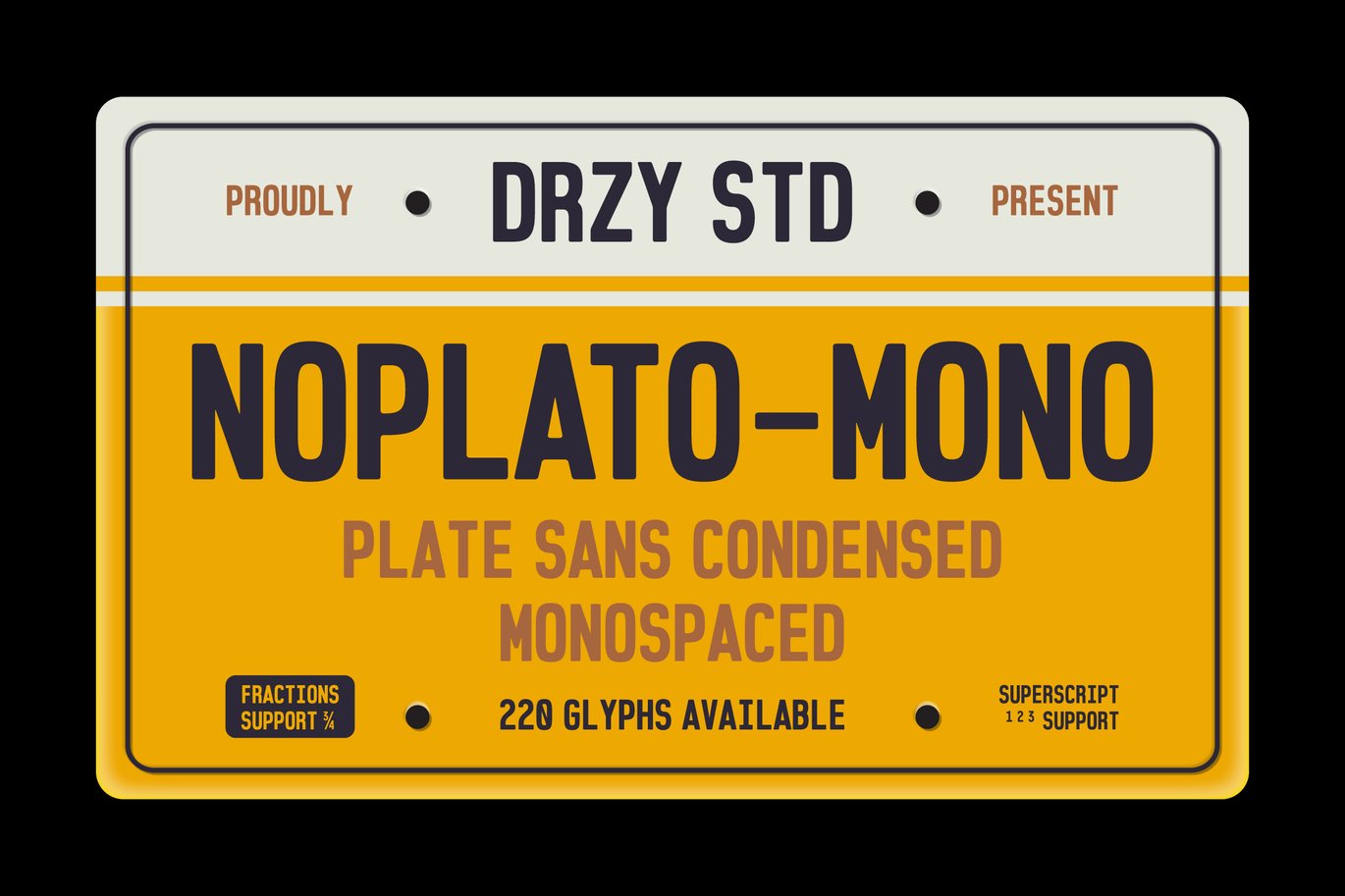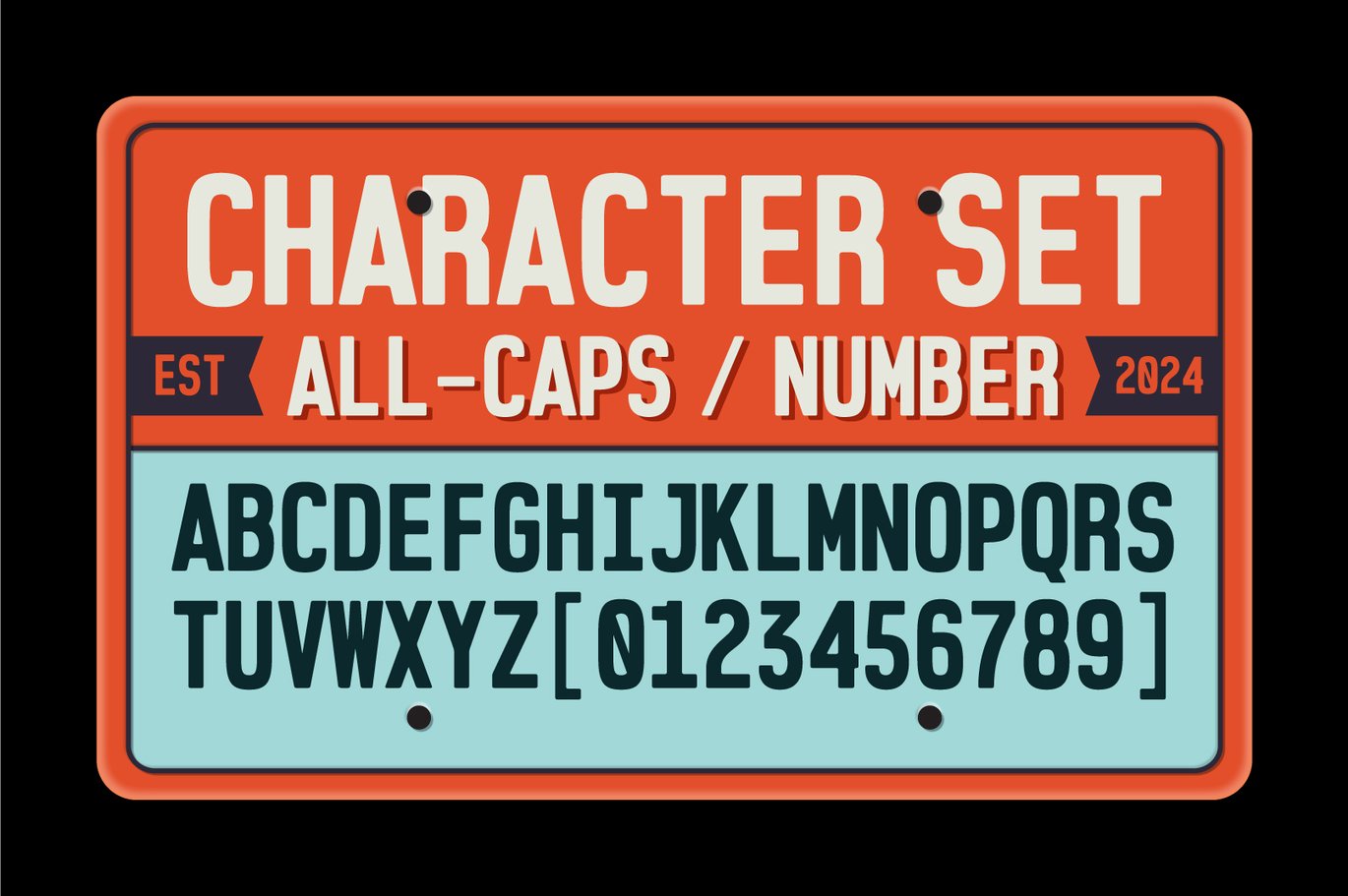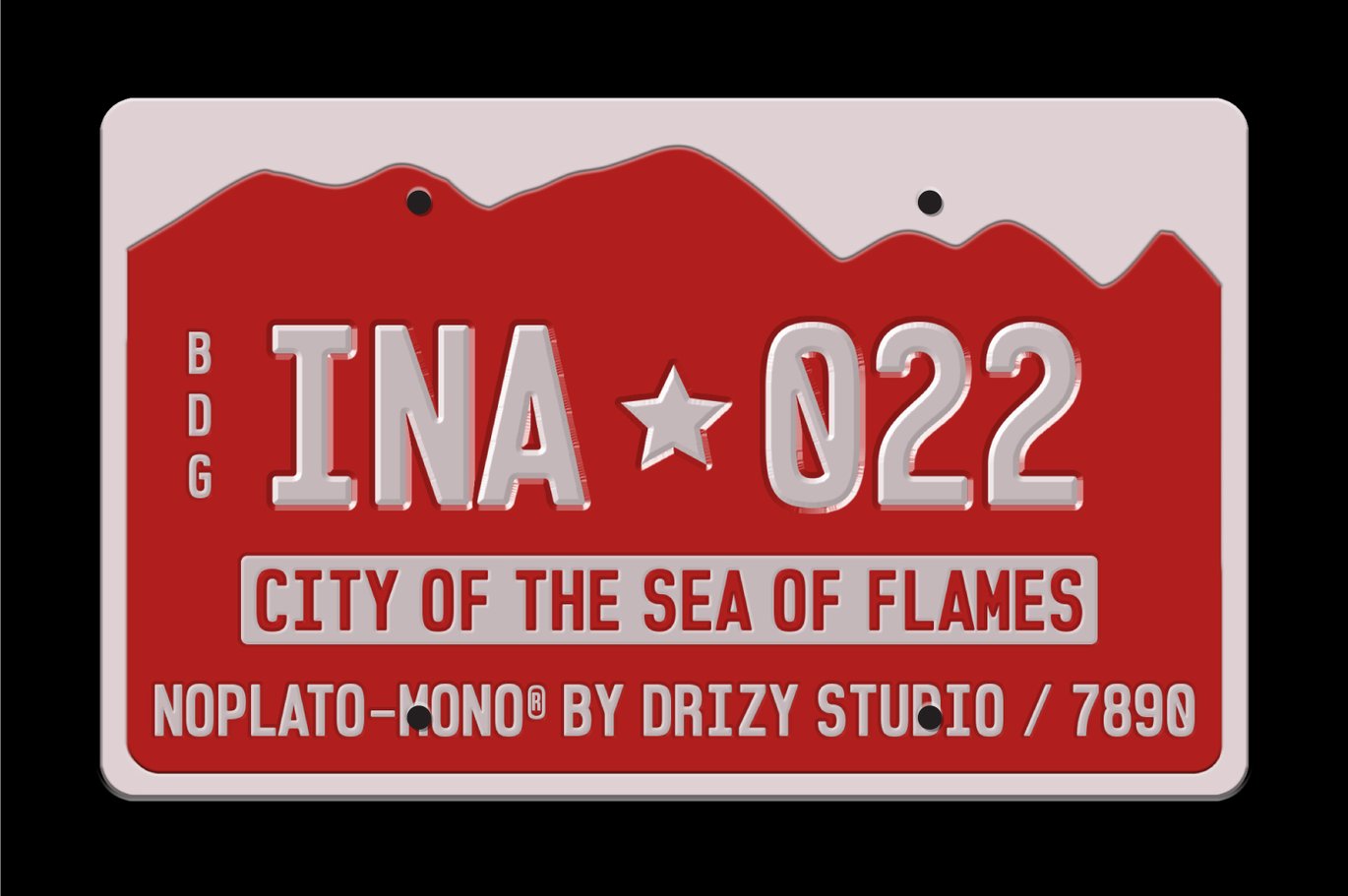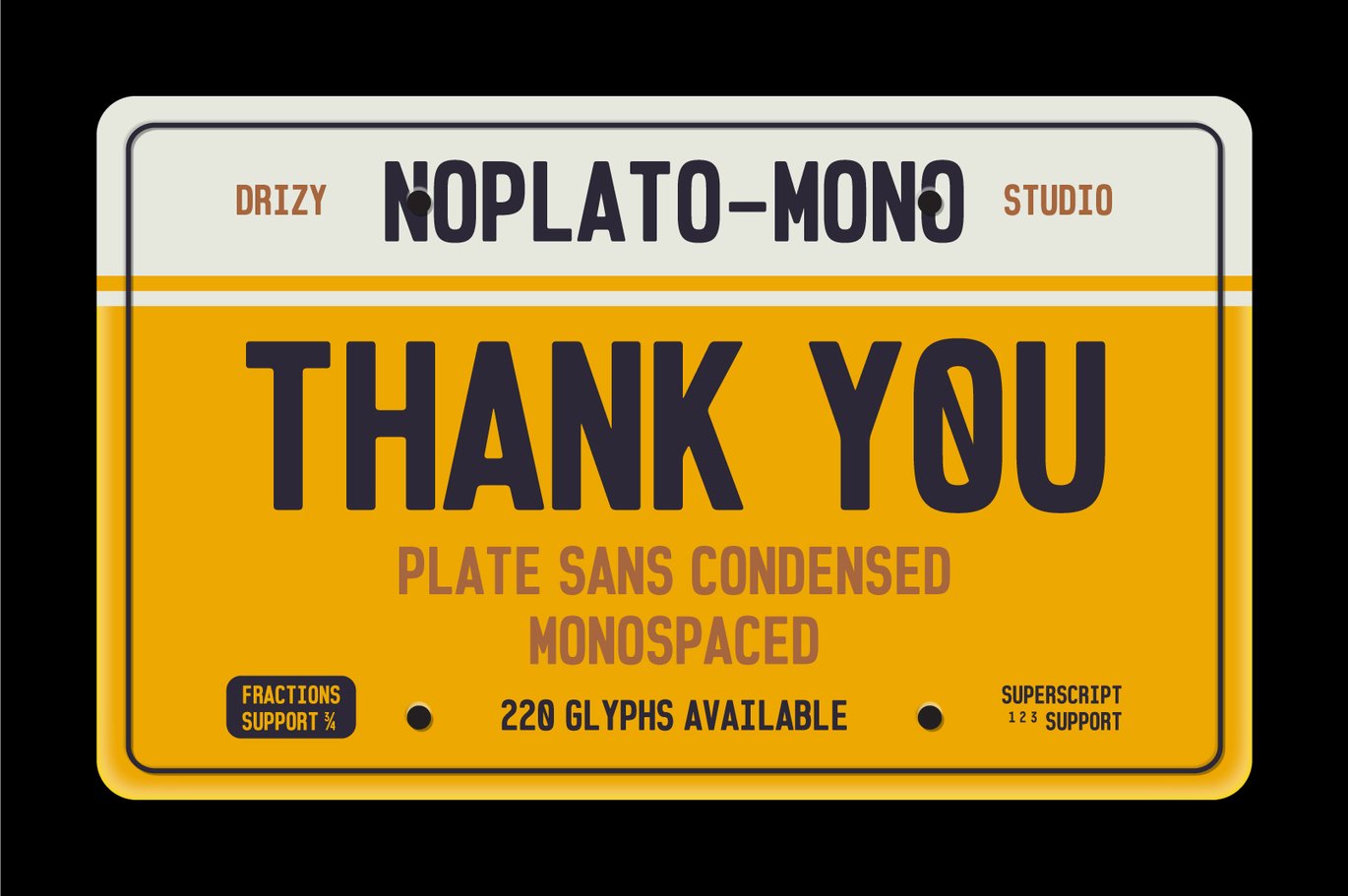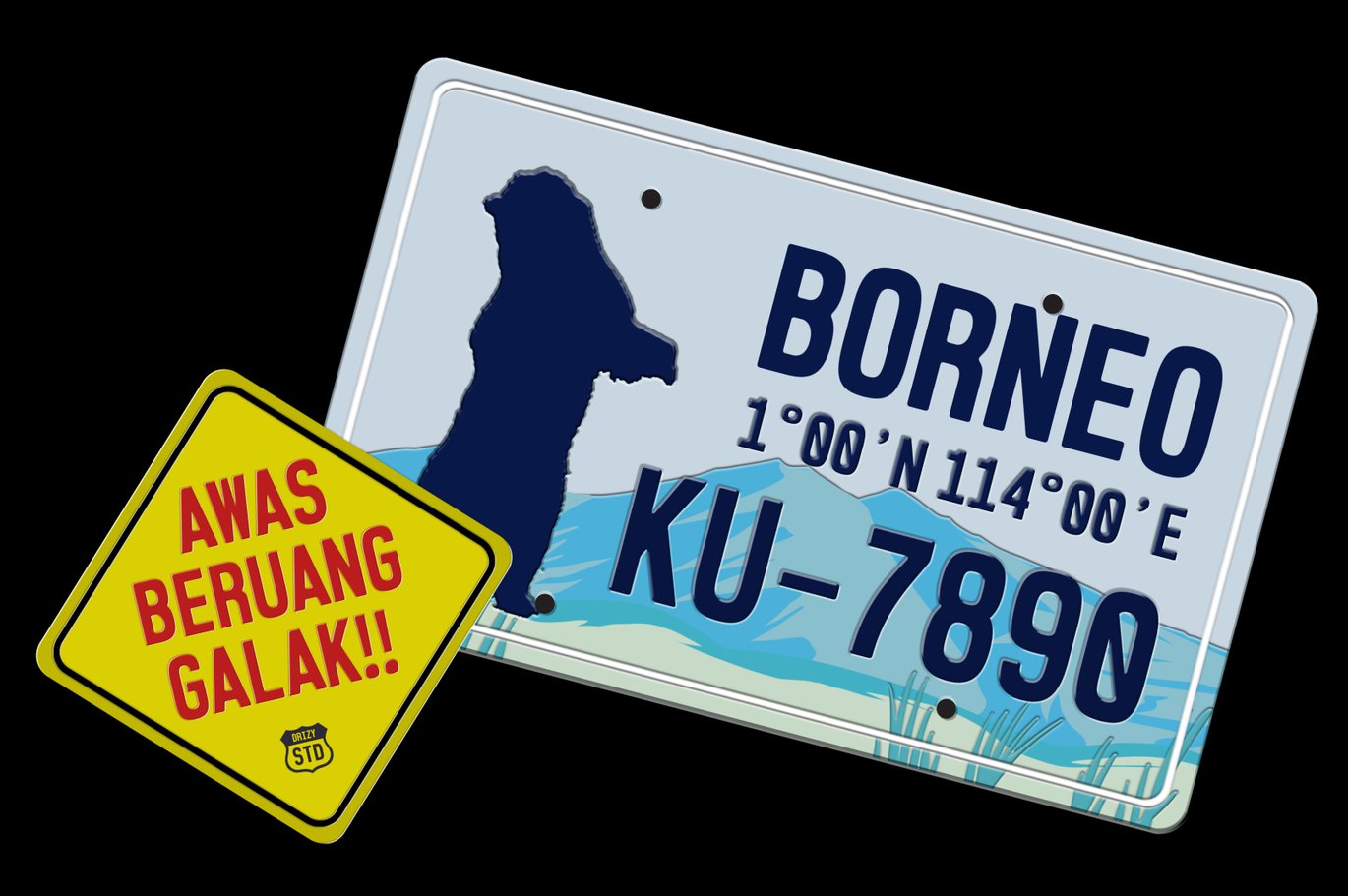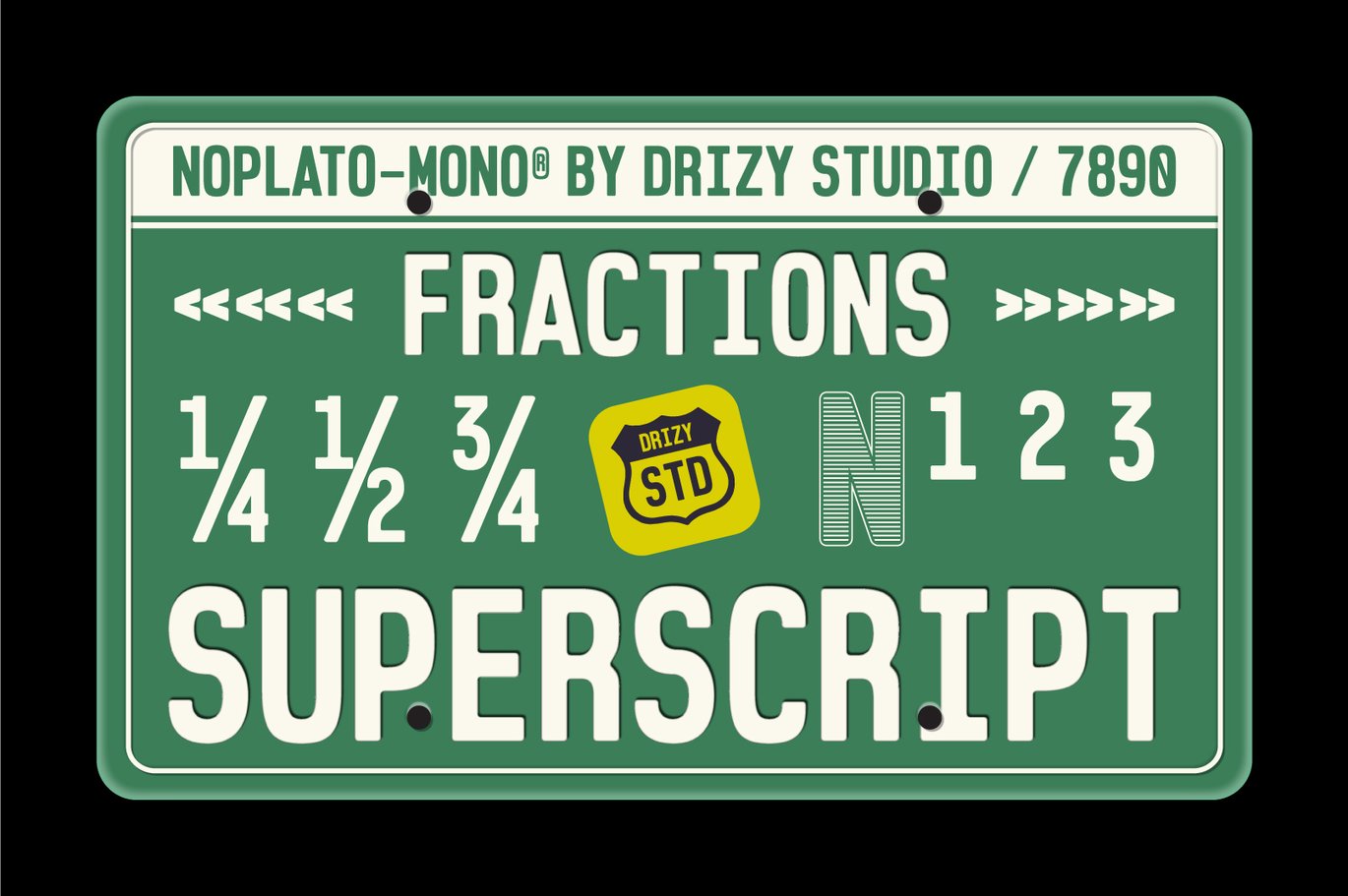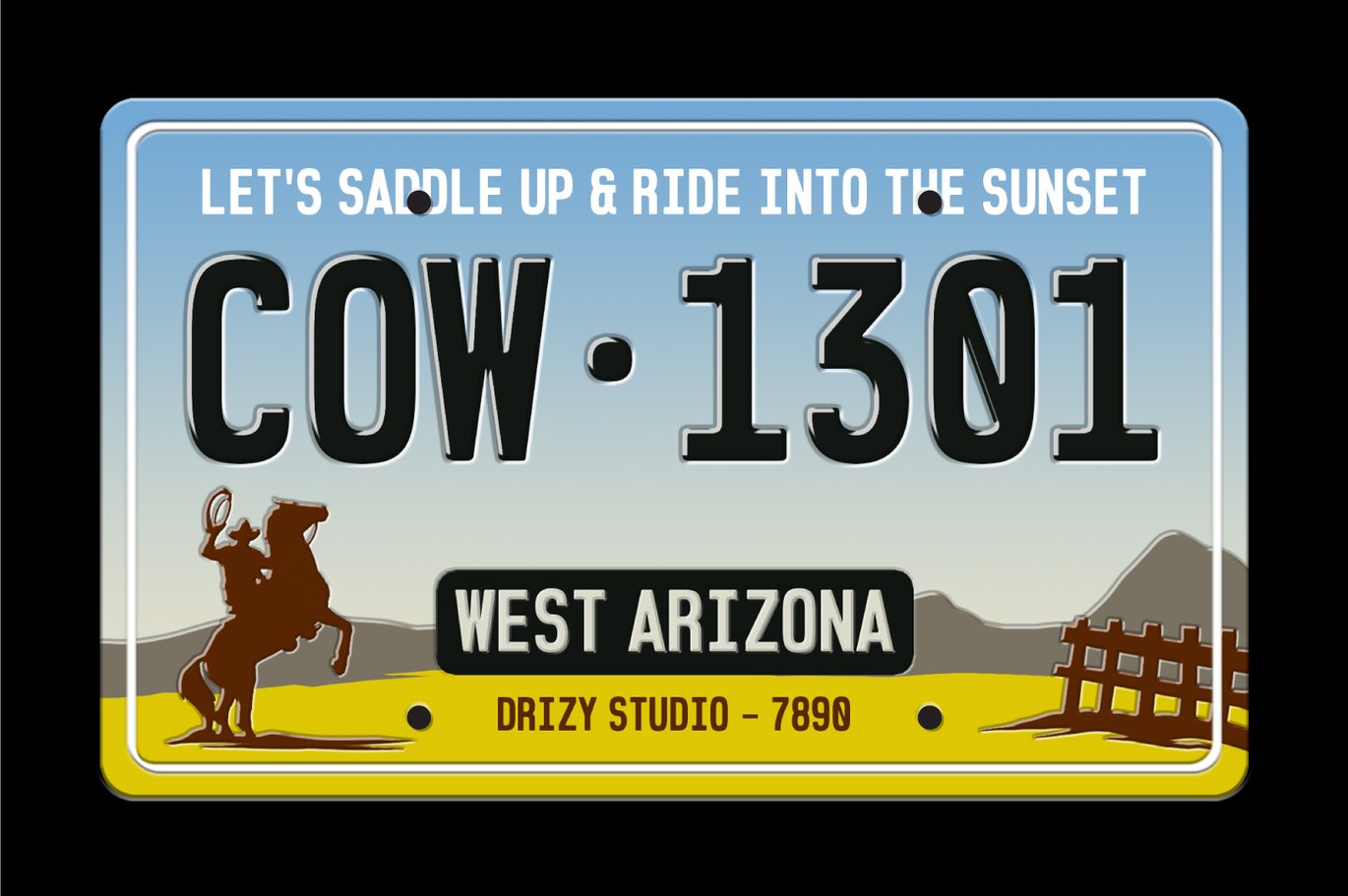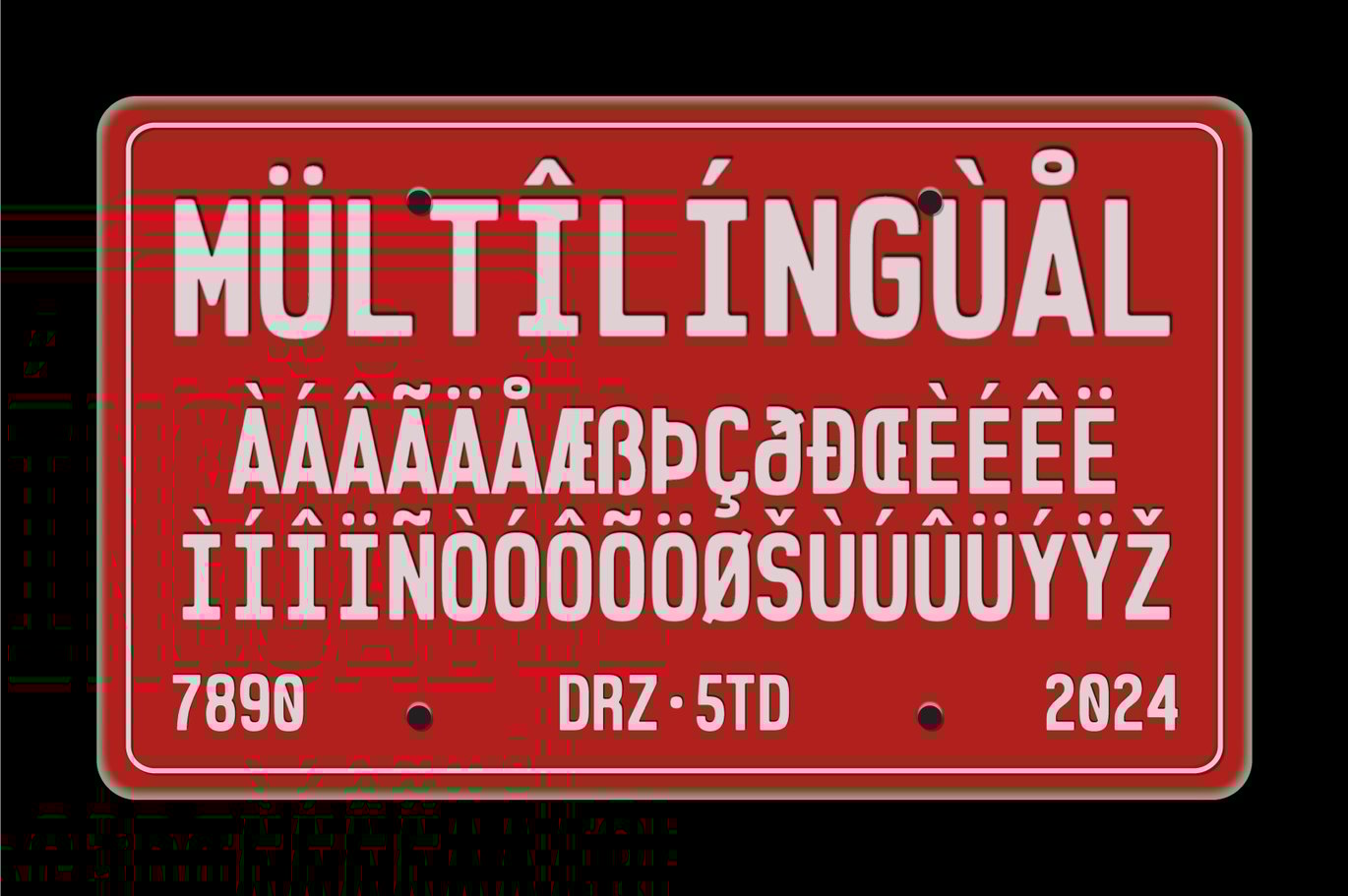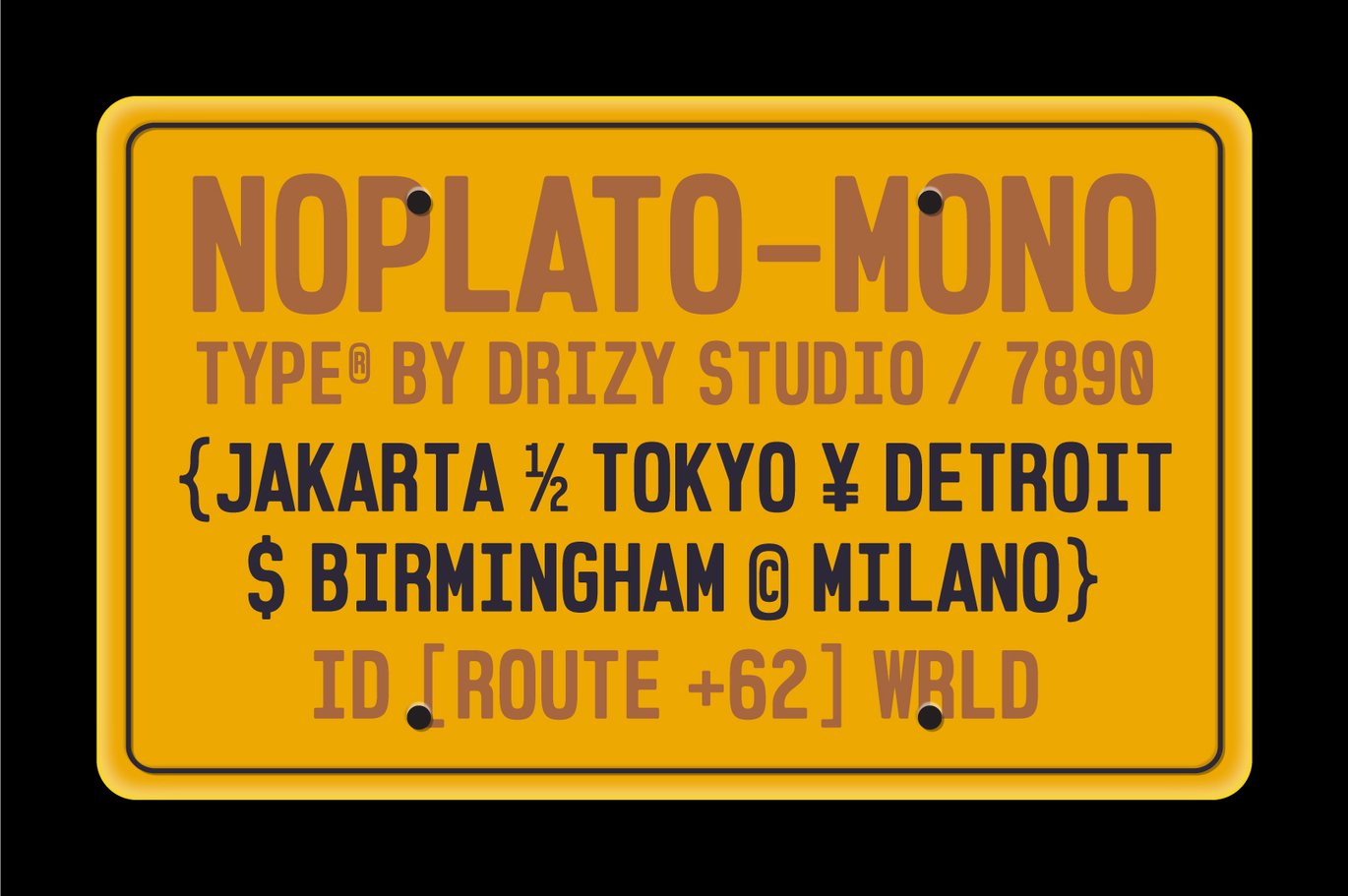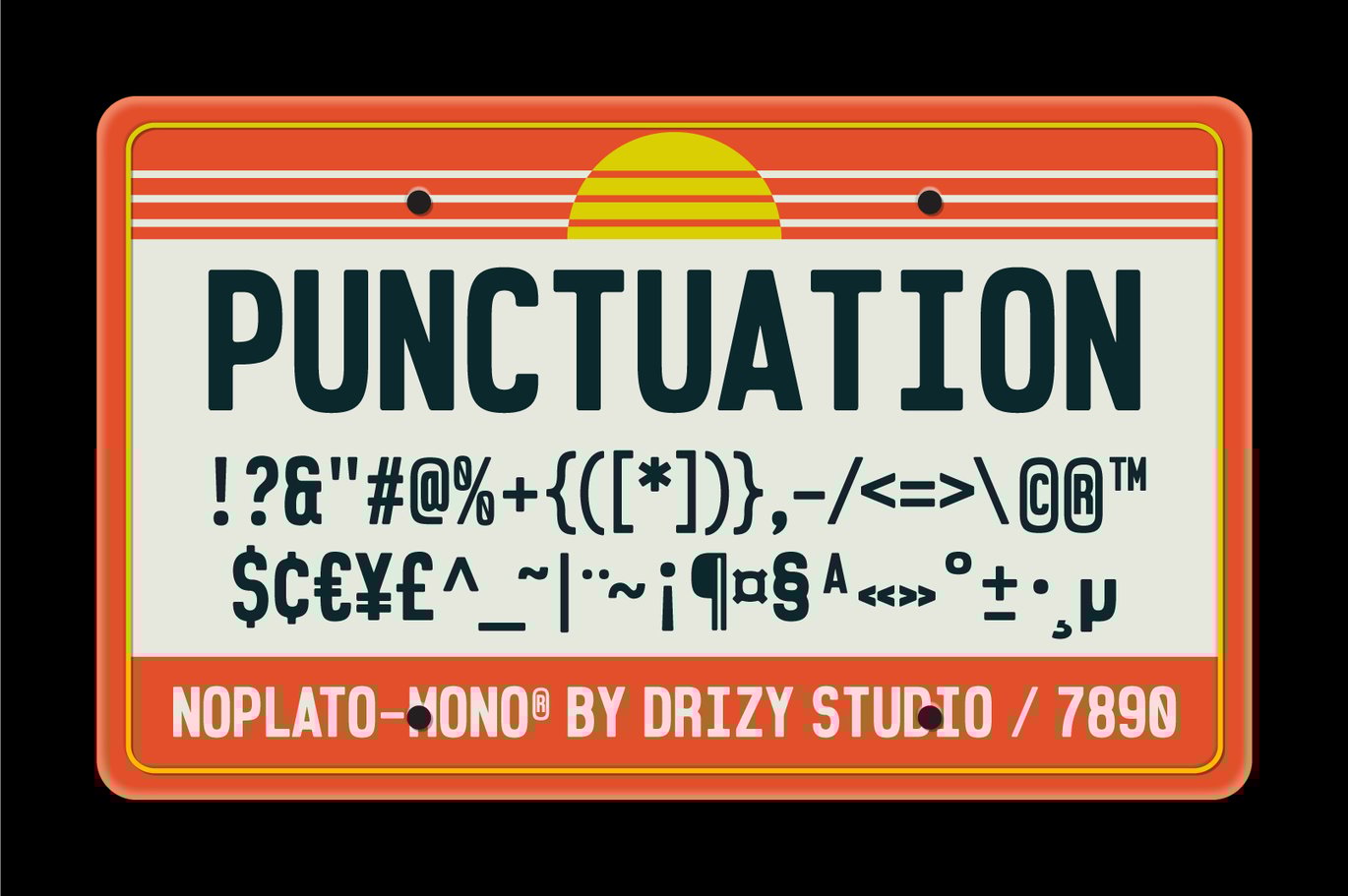
Noplato – Sans Condensed Monospaced Font
Introducing Noplato – a stylish and condensed monospaced font tailored specifically for license plates. With its sleek design and efficient use of space, Noplato ensures that every character stands out crisply and clearly, even in the limited confines of a license plate.
Elevate and explore the design possibilities with this License Plate Font!